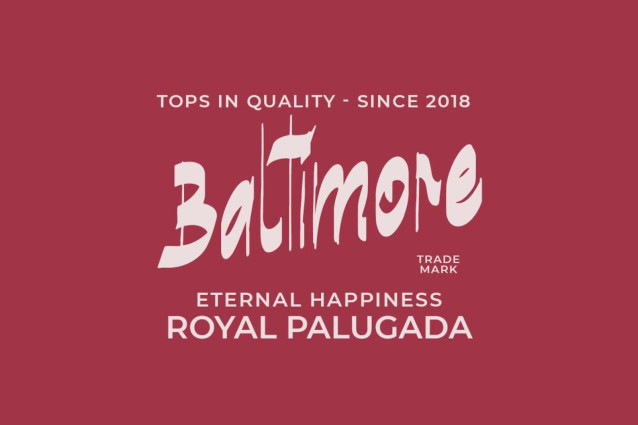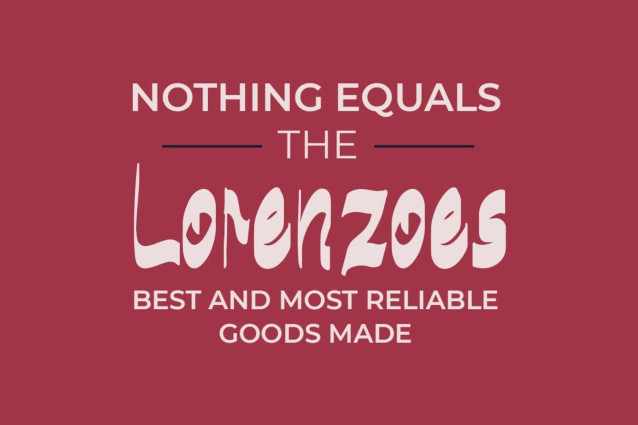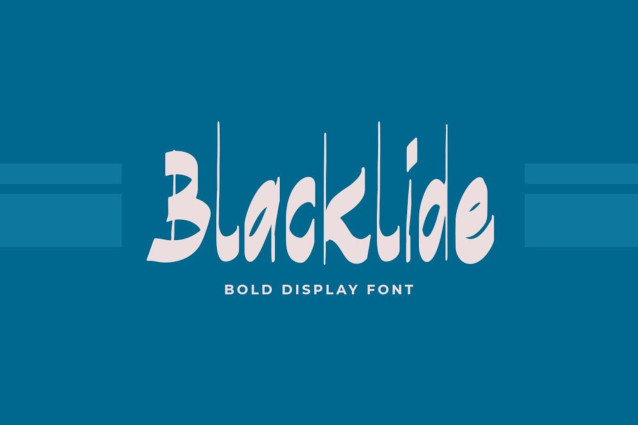
Blacklide Font
Blacklide Font is a simple and modern display font suitable for quotes, logos, headings, titles, and many more. Use it on any of your creative projects, and your designs will become outstanding!